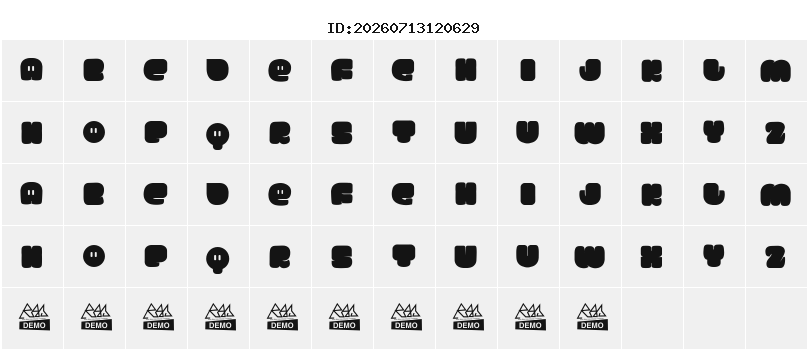
• Font Name: RÖLÓ!
About RÖLÓ!.ttf
RÖLÓ!.ttf is a modern, elegant sans-serif font designed for ultimate readability and visual harmony. Perfect for branding, headlines, web design, and print materials.